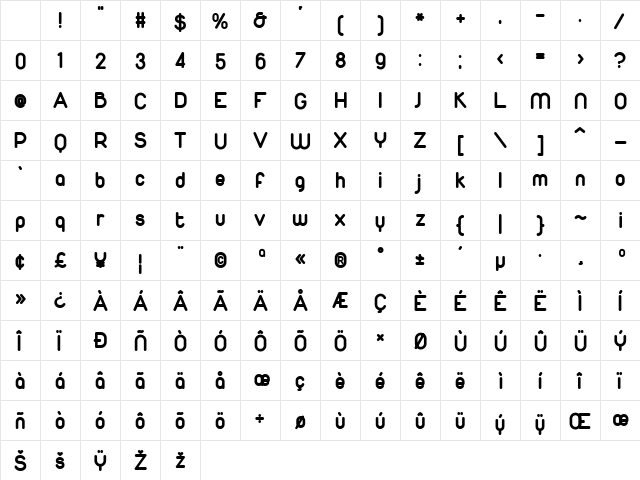
Complete Duepuntozero bold Regular glyph index. Displaying only characters natively supported by Duepuntozero bold Regular font.
Duepuntozero bold is a composed and adaptable typeface that performs quietly and consistently across a wide range of design contexts. Its bold stroke weight gives it real presence on the page.